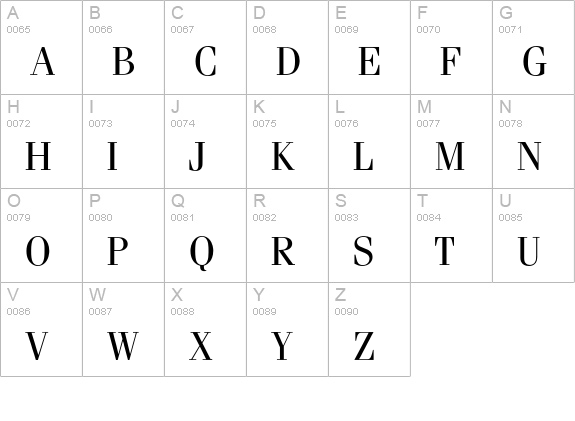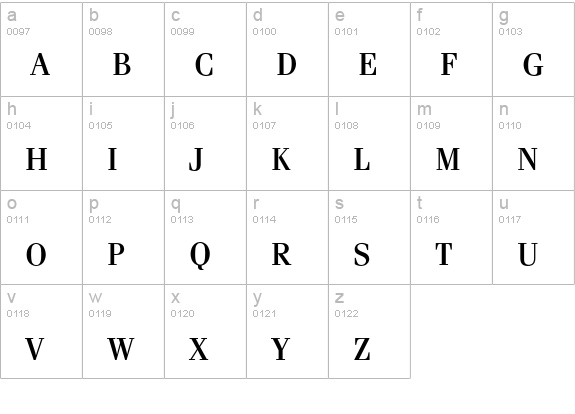
Fenice* Expert Regular is the standard, neutral variant in the Fenice* typeface family \xE2\x80\x94 well suited to general body text, paragraphs, and standard typographic work.
Fenice* Expert Regular font is a versatile and modern typeface that combines sophistication with readability. Its clean lines and balanced proportions make it suitable for a wide range of design projects, from branding to editorial design. The elegant curves and sharp edges of this font exude a sense of professionalism and style. What sets Fenice* Expert Regular font apart is its ability to convey a sense of authority and reliability while remaining visually appealing. Whether used in print or digital media, this font is sure to make a lasting impression on viewers. The best part is that Fenice* Expert Regular font is available for free download at FontsMarket.com. This means that you can easily access this high-quality font and use it in your projects without any cost. Don't miss out on the opportunity to enhance your designs with the timeless appeal of Fenice* Expert Regular font. Download it today and elevate your typography game to the next level.